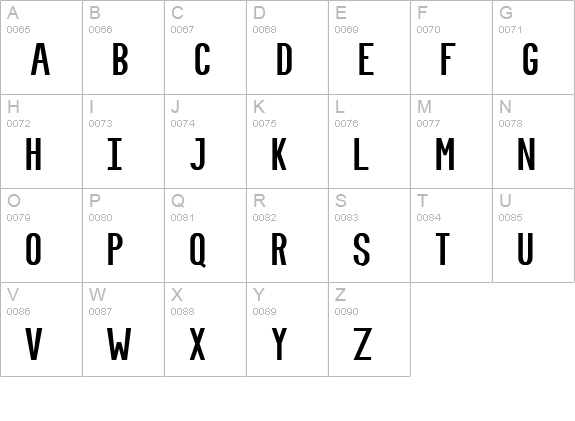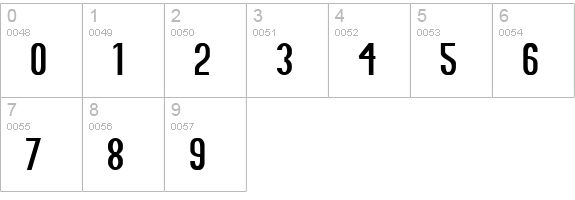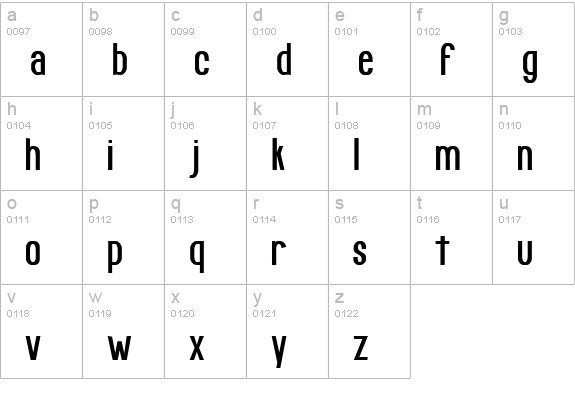
Fundamental Rush Font Details
Fundamental Rush font is a dynamic and modern typeface that exudes energy and excitement. With its bold and sharp letterforms, this font is perfect for projects that require a strong and impactful visual presence. The clean lines and sleek design of Fundamental Rush make it versatile and suitable for a wide range of applications, from branding to advertising to social media graphics. What makes Fundamental Rush font even more appealing is that it is available for free download at FontsMarket.com. This means that you can easily access this high-quality font without any cost, making it a valuable addition to your design toolkit. Whether you're a professional designer looking for a fresh typeface or a hobbyist experimenting with typography, Fundamental Rush font is a fantastic choice that won't break the bank. Download it today and elevate your designs with this striking and contemporary font.